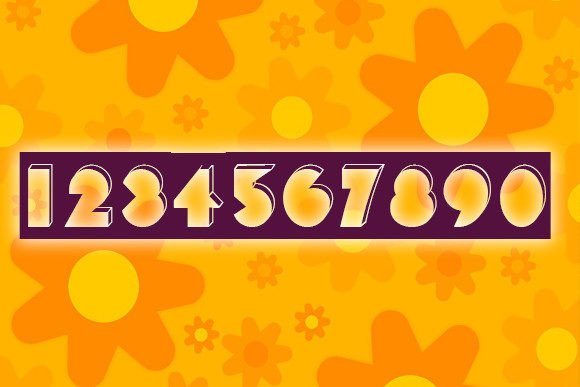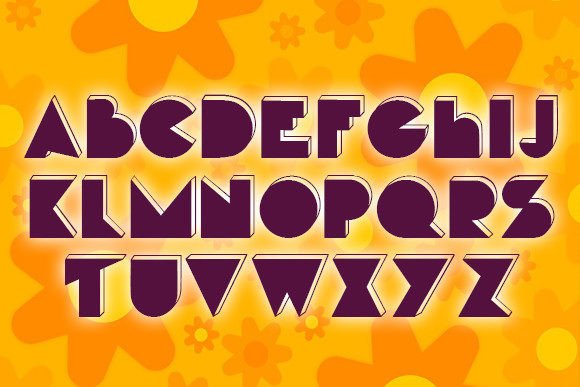
Unlock the Power of Visual Storytelling with Hunt Font
Do you remember that moment when you saw a design that completely stopped you in your tracks? The colors, the typography, the overall aesthetic – it all came together in perfect harmony. That’s what we’re aiming for with Hunt Font, a 3D display font that elevates your designs to the next level.
Hunt Font is the perfect addition to your design toolkit. Whether you’re working on posters, flyers, logos, book titles, or album covers, this font will give your creations an extraordinary edge. Its versatility and unique 3D style make it a valuable asset for designers who want to stand out from the crowd.
With Hunt Font, you’ll be able to create stunning visual effects that capture your audience’s attention. Its potential is endless, and we can’t wait to see what you’ll create with it!
Hunt Font Key Features
- Font Family: Hunt Font is a modern sans-serif font, designed for use in digital and print media.
- Unique Characteristics: Hunt Font features a clean, geometric design with a subtle rounded edge, giving it a friendly and approachable feel.
Hunt Font Review
Overall, I think Hunt Font has some great qualities that make it a solid choice for certain design projects, but it also has some limitations that prevent it from being a go-to font for me.
- Friendly, approachable feel that’s perfect for casual designs
- Good legibility, even at smaller font sizes
- Playful, hand-drawn vibe that adds character to designs
- Limited versatility – may not be suitable for formal or professional designs
- Not ideal for body text due to irregular letter spacing and irregular letterforms
- May be too playful or childish for certain audiences
Hunt Font is a fun, energetic font that’s great for casual designs or projects that need a playful touch. However, its limitations may make it less suitable for more formal or professional projects. If you’re looking for a font that adds a touch of whimsy to your designs, Hunt Font might be a good choice, but be aware of its limitations and use it thoughtfully.
Use Hunt Font for titles, headings, and other display text to add a touch of elegance and sophistication to your designs. It’s particularly suitable for logos, branding materials, and creative projects.
Alternatives to Hunt Font for Designers
Playfair Display is a luxurious, high-end serif font ideal for creating a sense of sophistication and elegance in designs. It is perfect for use in titles, headings, and any other element where you want to convey a sense of high-end quality.
Comparison to Hunt Font: While Hunt Font is more modern and sleek, Playfair Display has a more traditional and vintage feel. If you’re looking for a font that exudes luxury and sophistication, Playfair Display is a great alternative.
Great Vibes is a modern script font that is perfect for creating a sense of warmth and approachability in designs. It is ideal for use in titles, headings, and any other element where you want to convey a sense of personality and style.
Comparison to Hunt Font: While Hunt Font is more geometric and modern, Great Vibes has a more organic and handwritten feel. If you’re looking for a font that adds a touch of personality to your designs, Great Vibes is a great alternative.
Montserrat is a modern sans-serif font that is perfect for creating a sense of simplicity and elegance in designs. It is ideal for use in titles, headings, and any other element where you want to convey a sense of clean and minimalist style.
Comparison to Hunt Font: While Hunt Font is more geometric and modern, Montserrat has a more minimalist and simple feel. If you’re looking for a font that adds a touch of sophistication and elegance to your designs, Montserrat is a great alternative.